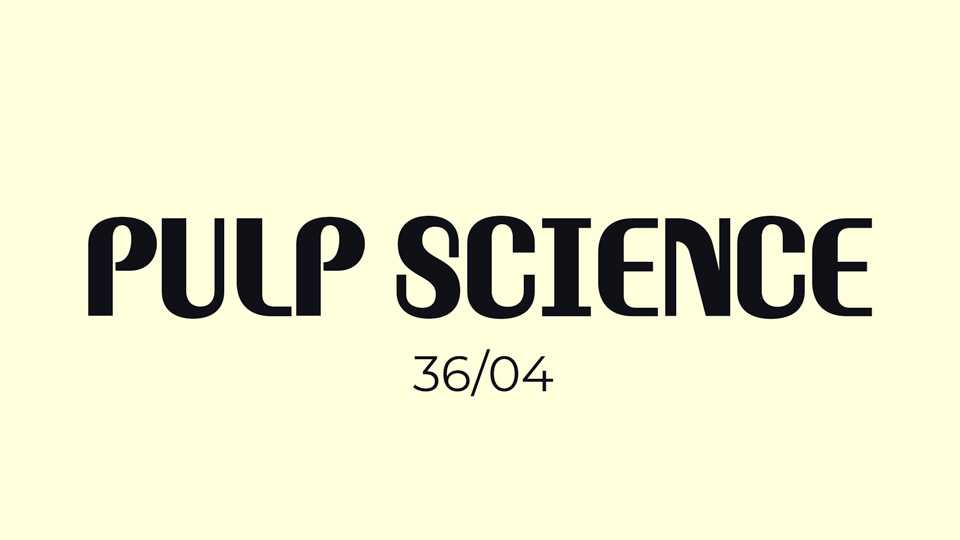
Download Pulp Science font, a display typeface inspired by vintage sci-fi paperbacks and movie posters, so this design is full of quirky geometry and fast curves!
Designer: Justin Penner